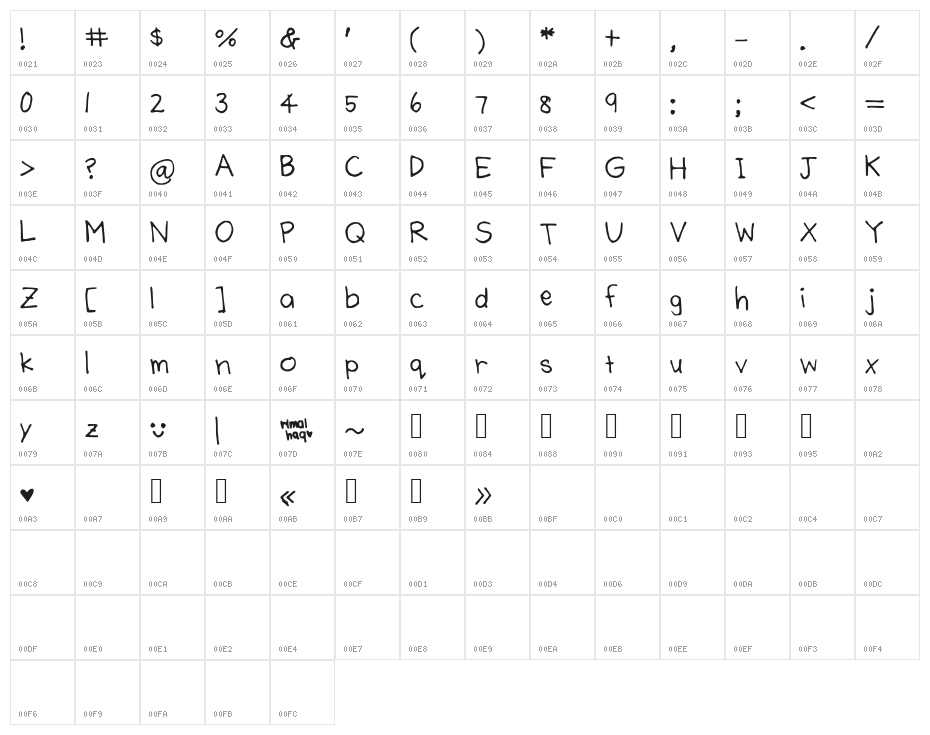
rimalik Font
rimalik Description
This font features a playful and informal handwritten style, characterized by its irregular strokes and casual appearance. The letters have a slightly uneven baseline, adding to the whimsical feel. The uppercase and lowercase letters maintain a consistent style, with rounded edges and a friendly demeanor. Numbers and special characters are designed to match the overall aesthetic, making the font versatile for various creative projects. The font's informal nature makes it suitable for designs that aim to convey a sense of fun and approachability.
| Proposed Projects | Ideal for children's books, greeting cards, casual invitations, and playful branding. |